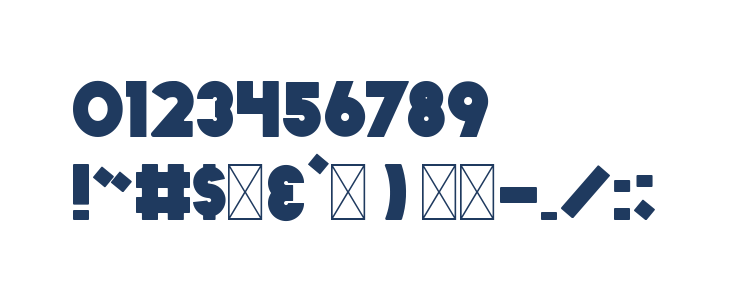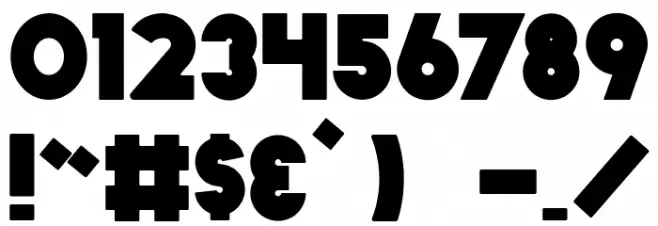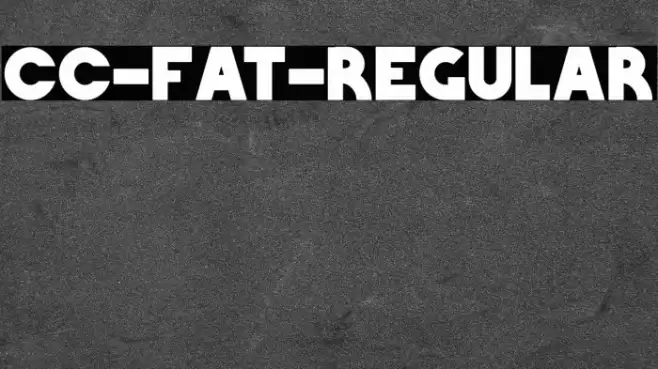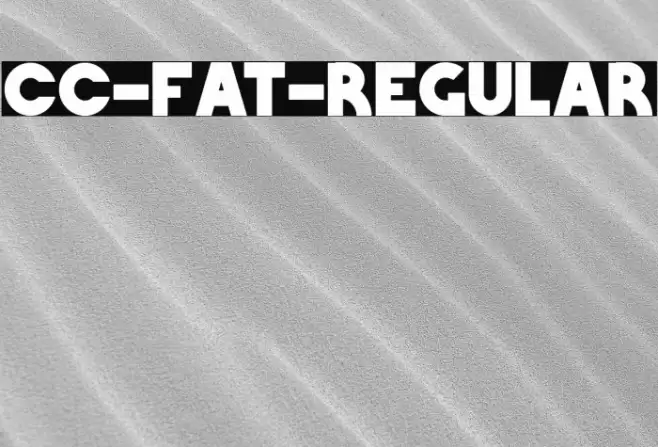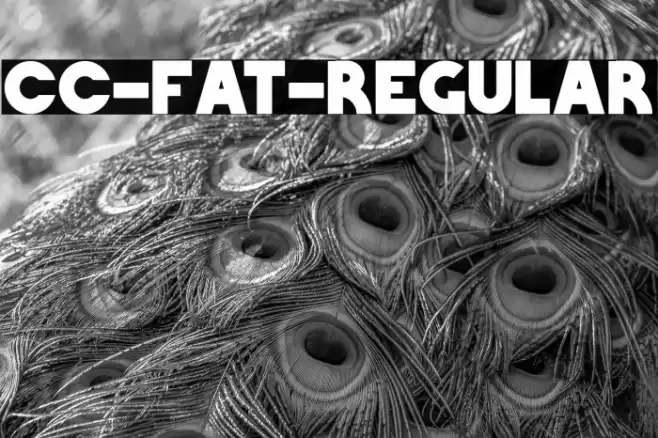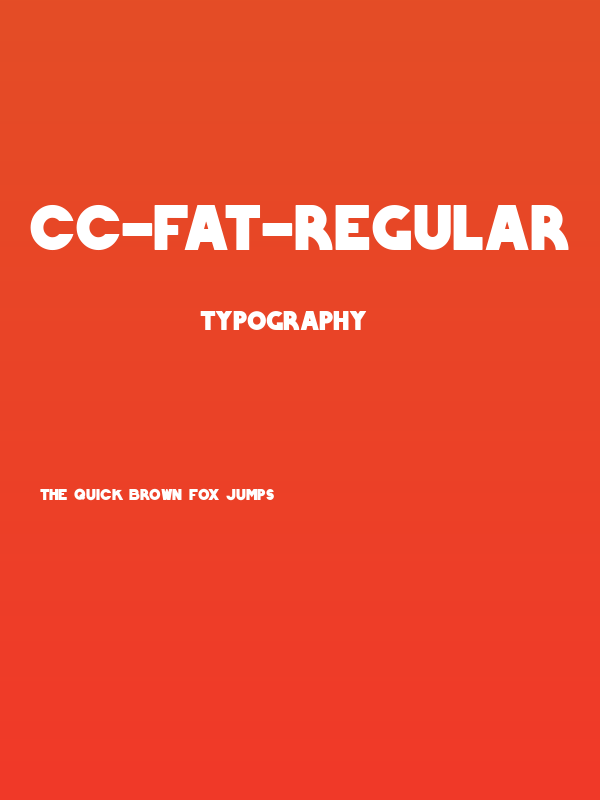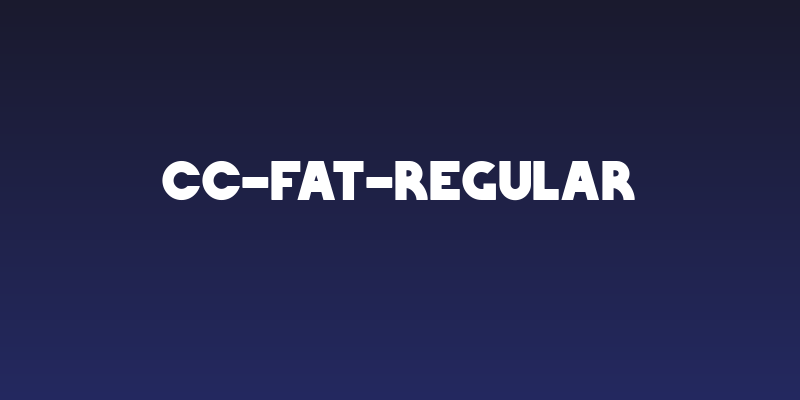
CC-Fat-Regular Font
CC-Fat-Regular Description
This bold and striking font features thick, blocky characters with a strong presence. The uppercase letters are uniform in height, creating a cohesive and powerful look. The numbers and special characters maintain the same boldness, ensuring consistency across all text elements. The font's geometric design and heavy weight make it ideal for attention-grabbing headlines and impactful designs. Its simplicity and clarity ensure readability, even at smaller sizes, while the boldness adds a modern and assertive touch.
| Proposed Projects | Ideal for posters, branding, headlines, and any project requiring a strong visual impact. |